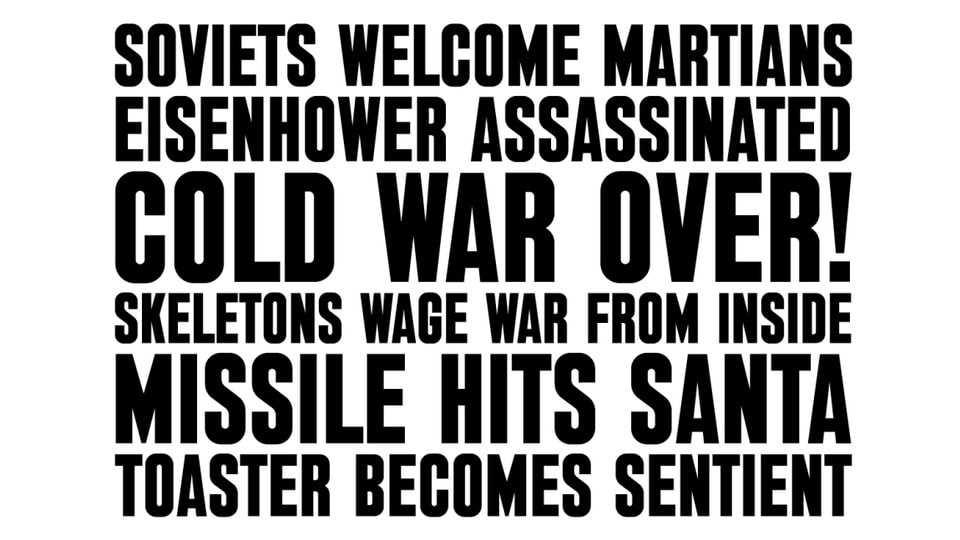
Download Bulletin Gothic is a digital revival of Daily News Gothic, a typeface designed by Gerry Powell for the New York Daily News newspaper specifically for headlines.